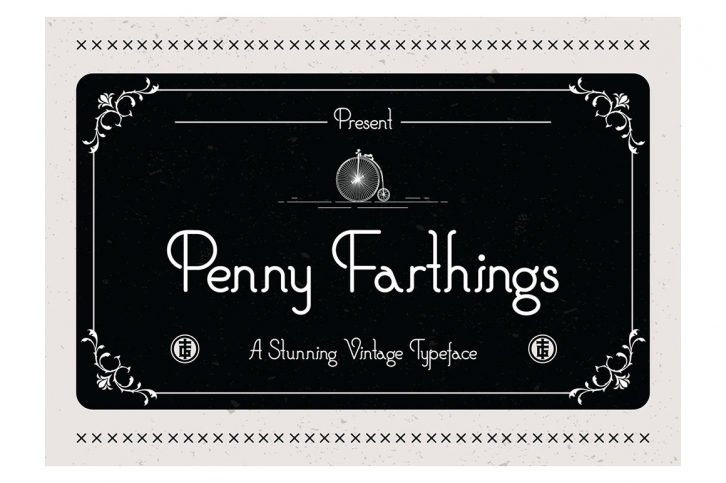
Penny Farthings is an old time classic, retro style inspired typeface. It will be a perfect choice for posters, affiches, logos, t-shirt and magazine prints, eye-pleasing typographic designs and more. Includes a full set of capital and lowercase letters, numerals & punctuation. Also, you will be getting an awesome ornaments pack containing vector graphics (png & eps) that you could use in your designs!Â